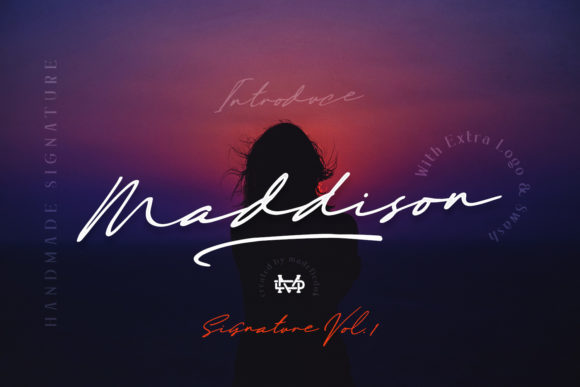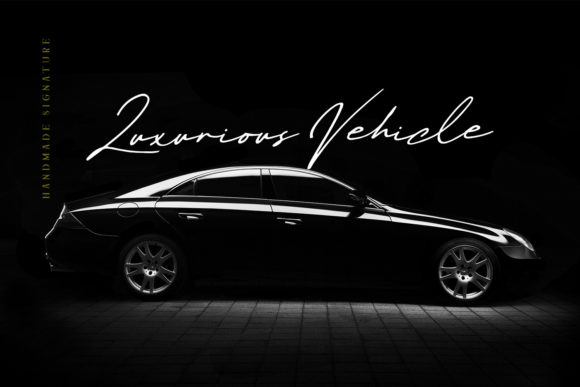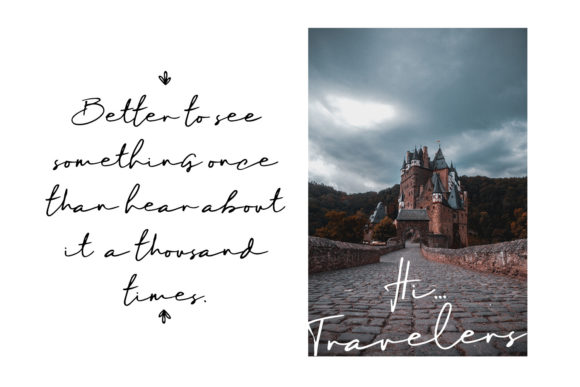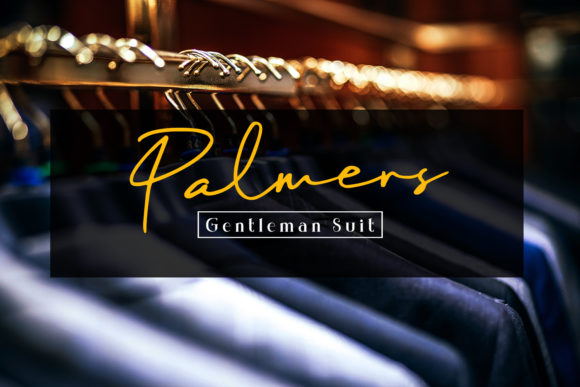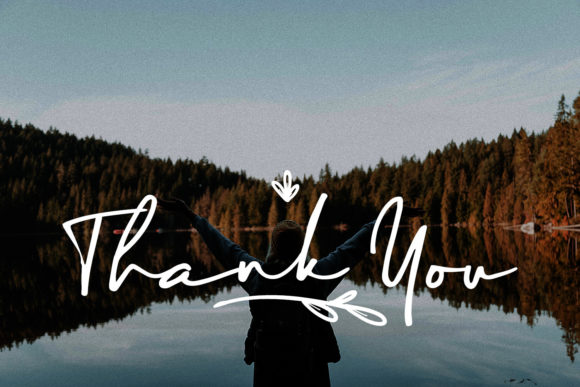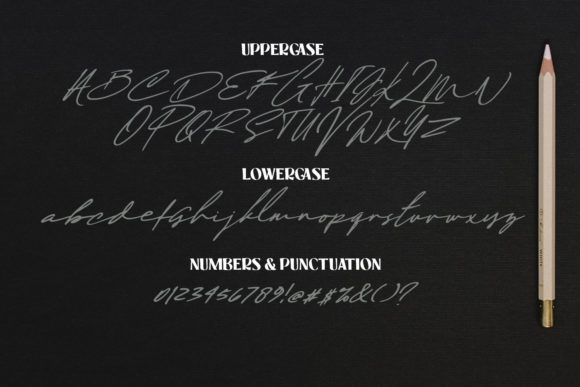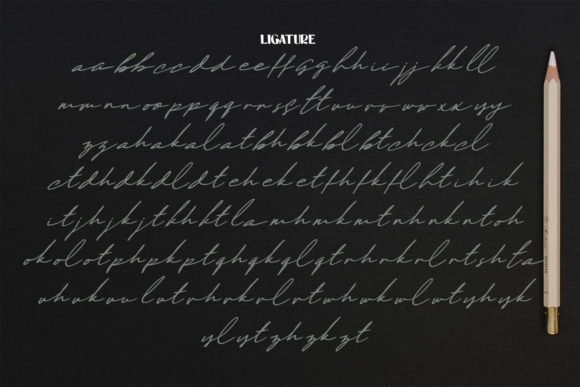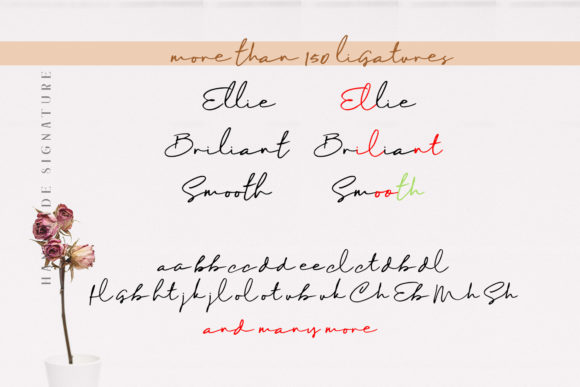
About Maddison Font
Maddison is a fashionable script font carefully created with a touch of elegance. Whether you’re looking for fonts for Instagram or calligraphy scripts for DIY projects, this font will turn any creative idea into a true piece of art!